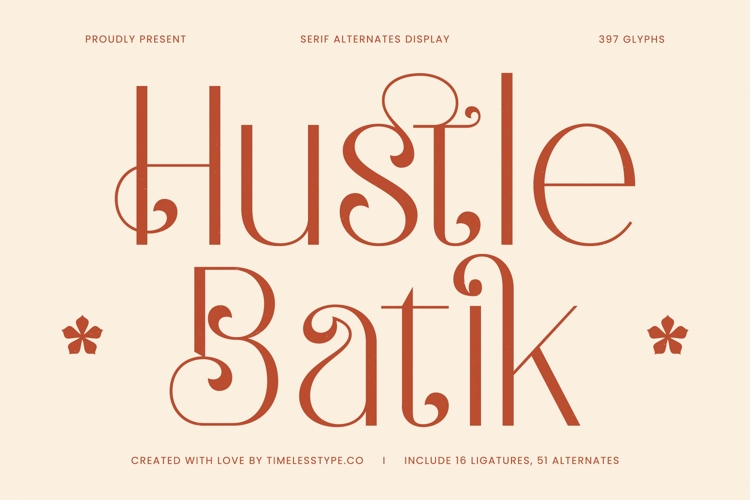
Hustle Batik - Serif Alternate Display
Unveil a new era of elegance with Hustle Batik - Serif Alternate Display, a truly captivating serif typeface designed to make your projects unforgettable. This exquisite font offers a unique blend of classic sophistication and contemporary flair, perfect for designers seeking to infuse their work with a touch of distinctive charm. Its graceful curves and refined serifs promise to elevate any design, creating an immediate sense of prestige and artistry.
Experience unparalleled creative freedom with the comprehensive character set of Hustle Batik - Serif Alternate Display. Boasting an impressive 51 alternates and 16 ligatures, this font provides immense stylistic flexibility to craft truly unique typographic compositions. With its extensive multilingual support, Hustle Batik - Serif Alternate Display adapts seamlessly across global markets, making it incredibly versatile for international projects and ensuring your message resonates worldwide.